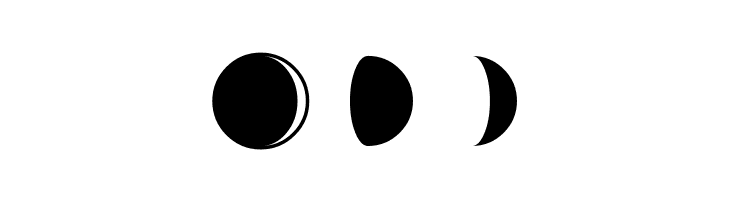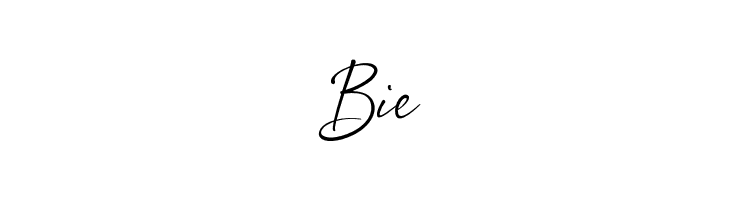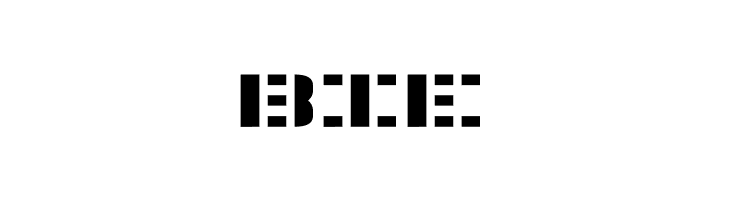
( Hanoded - David Kerkhoff - www.hanodedfonts.com )
An ornate and artistic font with elaborate swirls and flourishes.
( Hanoded - David Kerkhoff - www.hanodedfonts.com )
A playful, hand-drawn font with bold, irregular strokes and a whimsical style.
( MaxiGamer )
A bold, modern font with rounded, smooth characters ideal for impactful designs.
( Noschey! )
A playful and elegant handwritten script font.
( Noschey! )
A playful, handwritten-style font with a modern and whimsical touch.
( Roland Huse Design - Roland Huse - rolandhuse.com )
A bold, decorative font with intricate patterns and a vintage flair.
( Sholeha Anata )
A cursive script font with elegant loops and fluid connections.
( Skyhaven Fonts - fonts.plph.co )
A futuristic, geometric font with sharp angles and clean lines.
( Skyhaven Fonts - fonts.plph.co )
A bold, geometric font with high contrast and distinctive shapes.
( Skyhaven Fonts - fonts.plph.co )
A modern, geometric font with sharp angles and clean lines.
( dcoxy - Greg Medina - www.dcoxy.com/ )
A bold, cursive font with dynamic, sweeping strokes and a brush-like appearance.
( dcoxy - Greg Medina - www.dcoxy.com/ )
A bold, cursive font with fluid, interconnected characters.
( madeDeduk )
A dynamic cursive and bold script font with a rough, handcrafted texture.
( madeDeduk )
A stylish blend of cursive elegance and bold modernity.
( Chetype )
A bold, brush-style font with dynamic, hand-painted strokes.
( Falexoo - en.fakoo.de )
A dot-based, geometric font with a futuristic and digital aesthetic.
( Falexoo - en.fakoo.de )
A tactile writing system using raised dot patterns for the visually impaired.
( Lostvoltype Foundry - creativemarket.com/lostvoltype )
A dynamic, cursive font with fluid strokes and a modern, stylish appearance.
( Misti's Fonts - mistifonts.com/ )
A playful and whimsical script font with flowing, interconnected letters.
( Misti's Fonts - mistifonts.com/ )
A playful, hand-drawn script font with fluid, connected letterforms.
( Misti's Fonts - mistifonts.com/ )
A playful, handwritten script font with interconnected letters and moderate stroke thickness.
( Fonts by Mohammad Azmil Bahar )
A playful, hand-drawn font with tall, narrow characters and a whimsical style.
A bold, geometric font with high contrast and strong visual impact.